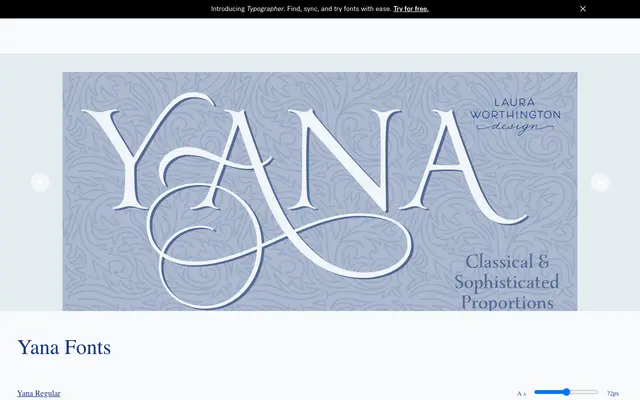
Yana
A classical serif with swash capitals and small caps, offered in three styles for text and titling work.
Yana comes in Regular, Regular Italic and Bold, with classical proportions aimed at both extended text and headline settings. The family includes two sets of swash capitals, each available in standard, small cap and petite cap sizes, giving designers scope to add calligraphic flourishes to wordmarks and editorial headings. OpenType features cover old-style numerals, titling capitals, stylistic alternates and superscript, with broad Latin Extended language support.
Yana is described as having classical proportions, suggesting a traditional serif design suited to both text and display settings; the inclusion of swash capitals and small caps places it within a decorative classical serif tradition.